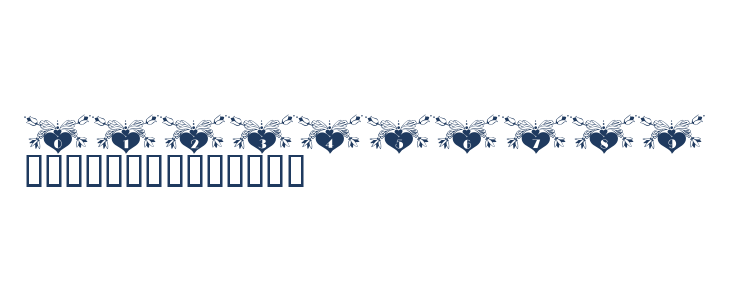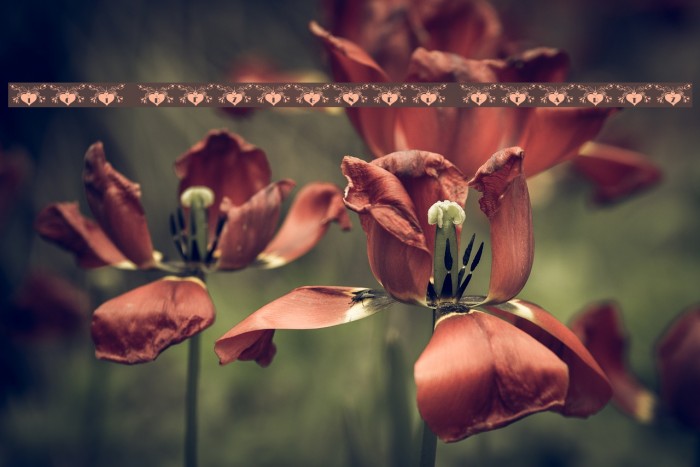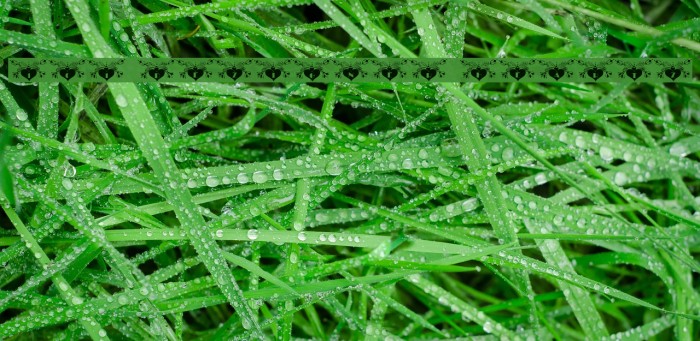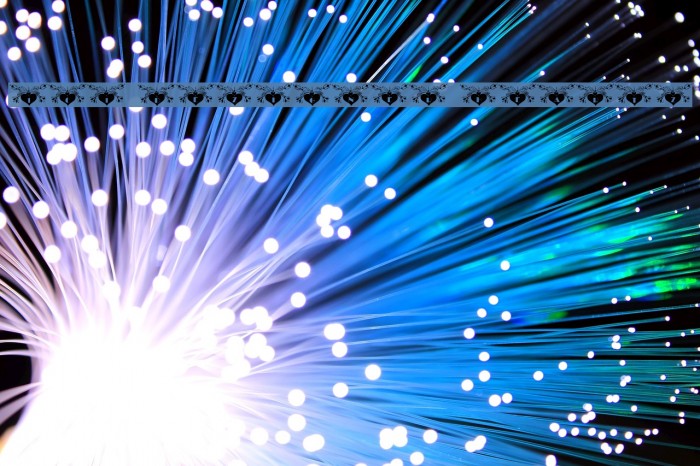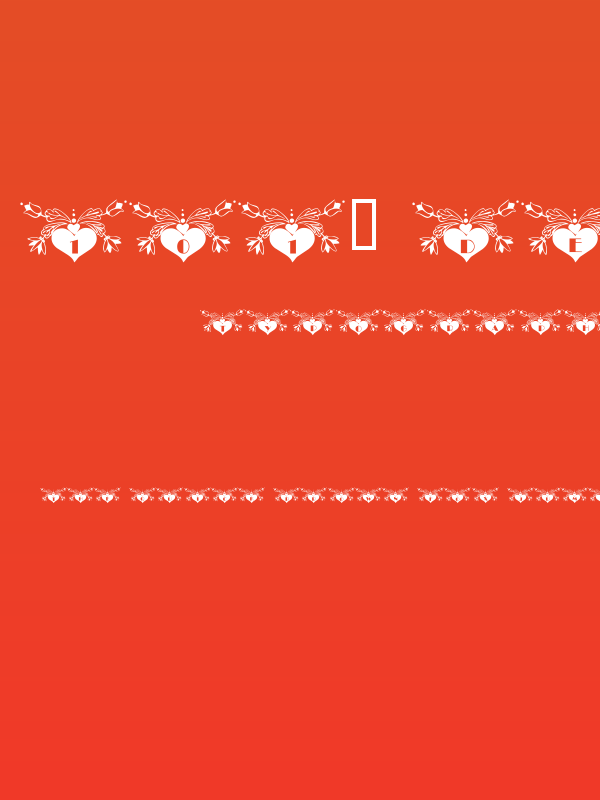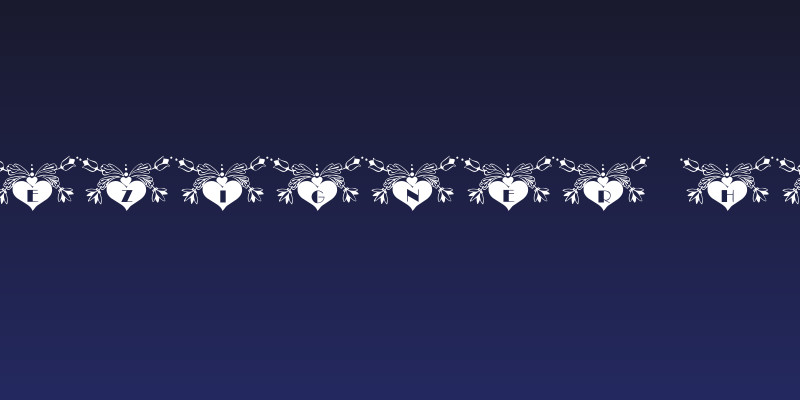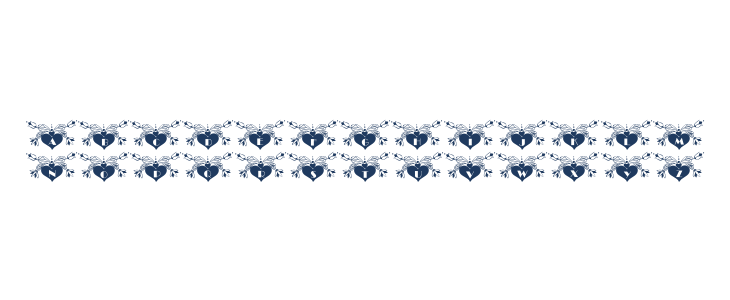
101! Dezigner HeartZ Font
101! Dezigner HeartZ Description
This design features a decorative pattern with heart motifs and intricate floral elements. The hearts are prominently displayed in a repeating sequence, each adorned with delicate, swirling vines and floral accents. The overall appearance is ornate and romantic, making it suitable for decorative purposes. The design is consistent across the rows, emphasizing symmetry and elegance.
| Use Case | Decorative borders, Invitations |
| Proposed Projects | Ideal for wedding invitations, romantic greeting cards, decorative borders, and scrapbooking projects. |